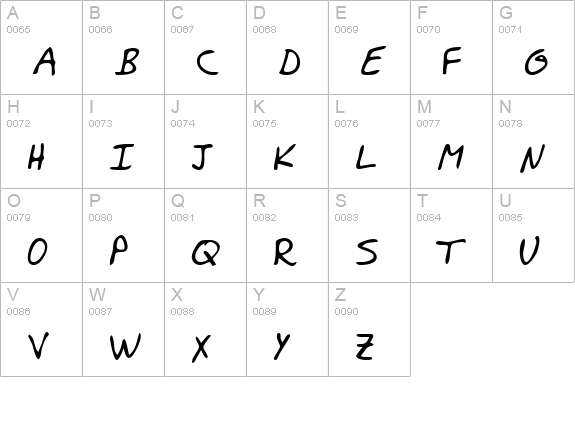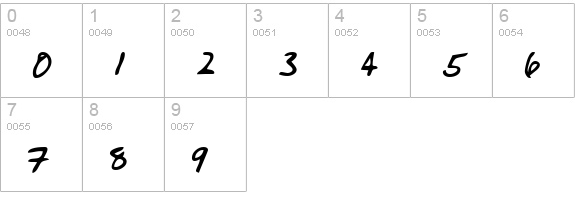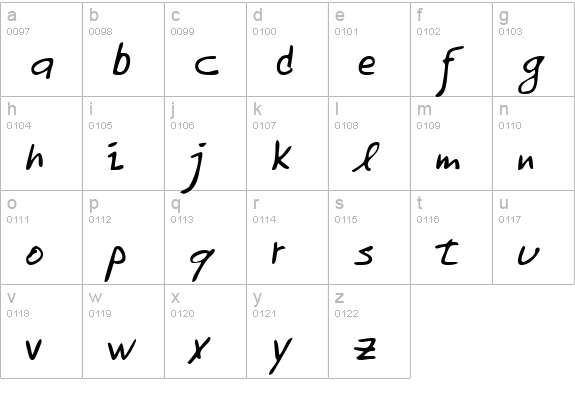
KathrynsHand Regular Font Details
KathrynsHand Regular is the standard, neutral variant in the KathrynsHand typeface family \xE2\x80\x94 well suited to general body text, paragraphs, and standard typographic work.
KathrynsHand Regular is a beautifully crafted font that exudes elegance and charm. With its delicate and graceful strokes, this font adds a touch of sophistication to any design project. Whether you are creating invitations, logos, or any other creative endeavor, KathrynsHand Regular is the perfect choice to make your work stand out. One of the best things about KathrynsHand Regular is that it is available for free. That's right, you can freely download this font at FontsMarket.com and start using it in your projects right away. This means that you can add a touch of elegance to your designs without breaking the bank. The versatility of KathrynsHand Regular is another reason why it is so popular among designers. It works well in both small and large sizes, ensuring that your text remains legible and visually appealing across various mediums. Whether you are designing for print or web, this font will deliver exceptional results. The attention to detail in KathrynsHand Regular is truly remarkable. Each letter is meticulously crafted to ensure a seamless and harmonious flow. Whether it's the elegant loops of the lowercase letters or the graceful curves of the uppercase letters, every aspect of this font has been carefully considered. KathrynsHand Regular is a font that evokes a sense of timeless beauty. It captures the essence of classic handwriting, adding a touch of nostalgia to your designs. It is perfect for creating invitations, greeting cards, or any other project that requires a personal and intimate touch. In conclusion, KathrynsHand Regular is a stunning font that effortlessly combines elegance and charm. Its freely available download at FontsMarket.com makes it accessible to everyone, allowing you to enhance your designs without any cost. So why wait? Download KathrynsHand Regular today and start adding a touch of sophistication to your projects.